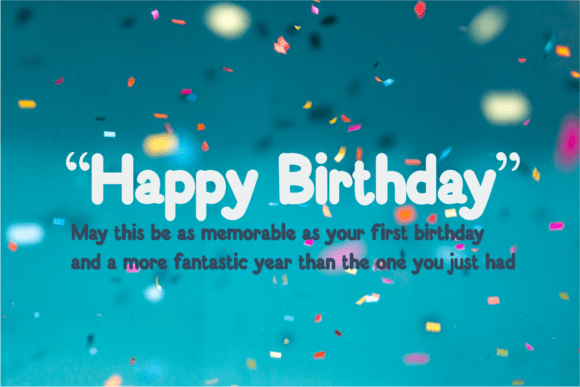
The Boufanie Font: A Bold and Unique Sans Serif Font for Every Occasion
In the world of typography, a font can make all the difference in conveying a message effectively. With so many fonts available, it can be challenging to find one that stands out from the rest. However, if you’re looking for a bold and unique sans serif font that can elevate your creative projects, look no further than The Boufanie Font. In this article, we’ll introduce you to The Boufanie, a font that boasts 218 distinctive glyphs and is designed with versatility in mind.
Key Features of The Boufanie Font
- 218 Distinctive Glyphs: The Boufanie Font comes with an impressive 218 glyphs, making it a versatile font that can be used for a wide range of creative projects.
- Bold and Unique Sans Serif Design: The Boufanie Font features a bold and unique sans serif design that is sure to grab attention.
- Simple yet Bold: The font’s simplicity is beautifully complemented by its boldness, making it a standout from the ordinary.
- Versatile: The Boufanie Font is designed to be versatile, making it suitable for various themes and seasons.
Endless Creative Possibilities with The Boufanie Font
The Boufanie Font is perfect for a wide range of creative projects, including:
- Birthday Bashes: Add a playful touch to your birthday party invitations, banners, and decorations with The Boufanie Font.
- Halloween Events: Give your Halloween party a spooky flavor with The Boufanie Font’s bold and unique design.
- Winter Celebrations: Capture the enchantment of winter celebrations with The Boufanie Font’s clean and crisp design.
- Advertising and Marketing: Use The Boufanie Font to create eye-catching advertisements, posters, and social media graphics that stand out from the crowd.
- Branding and Packaging: Add a touch of personality to your brand’s packaging and branding materials with The Boufanie Font.
The Benefits of Using The Boufanie Font
The Boufanie Font offers several benefits, including:
- Unmistakable Style: The Boufanie Font has an unmistakable style that sets it apart from other fonts.
- Versatility: The font’s versatility makes it suitable for various themes and seasons.
- High-Quality Design: The font is designed with high-quality in mind, ensuring that your creative projects look professional and polished.
Tips and Tricks for Using The Boufanie Font
Here are some tips and tricks for getting the most out of The Boufanie Font:
- Experiment with Different Sizes: The Boufanie Font looks great in various sizes, so experiment with different sizes to find the one that works best for your project.
- Pair it with Other Fonts: The Boufanie Font pairs well with other fonts, so try pairing it with a serif font for a unique look.
- Use it for Headings: The Boufanie Font is perfect for headings and titles, so use it to add a bold and eye-catching touch to your project.
- Customize it: The Boufanie Font can be customized to fit your needs, so don’t be afraid to experiment with different colors and styles.
In conclusion, The Boufanie Font is a bold and unique sans serif font that is perfect for creative projects. With its 218 distinctive glyphs, versatility, and high-quality design, it’s an excellent addition to any creative palette. Whether you’re designing a birthday party invitation, a Halloween event poster, or a winter celebration graphic, The Boufanie Font is sure to make your message stand out. So why wait? Download The Boufanie Font today and start creating stunning creative projects that showcase your unique style.